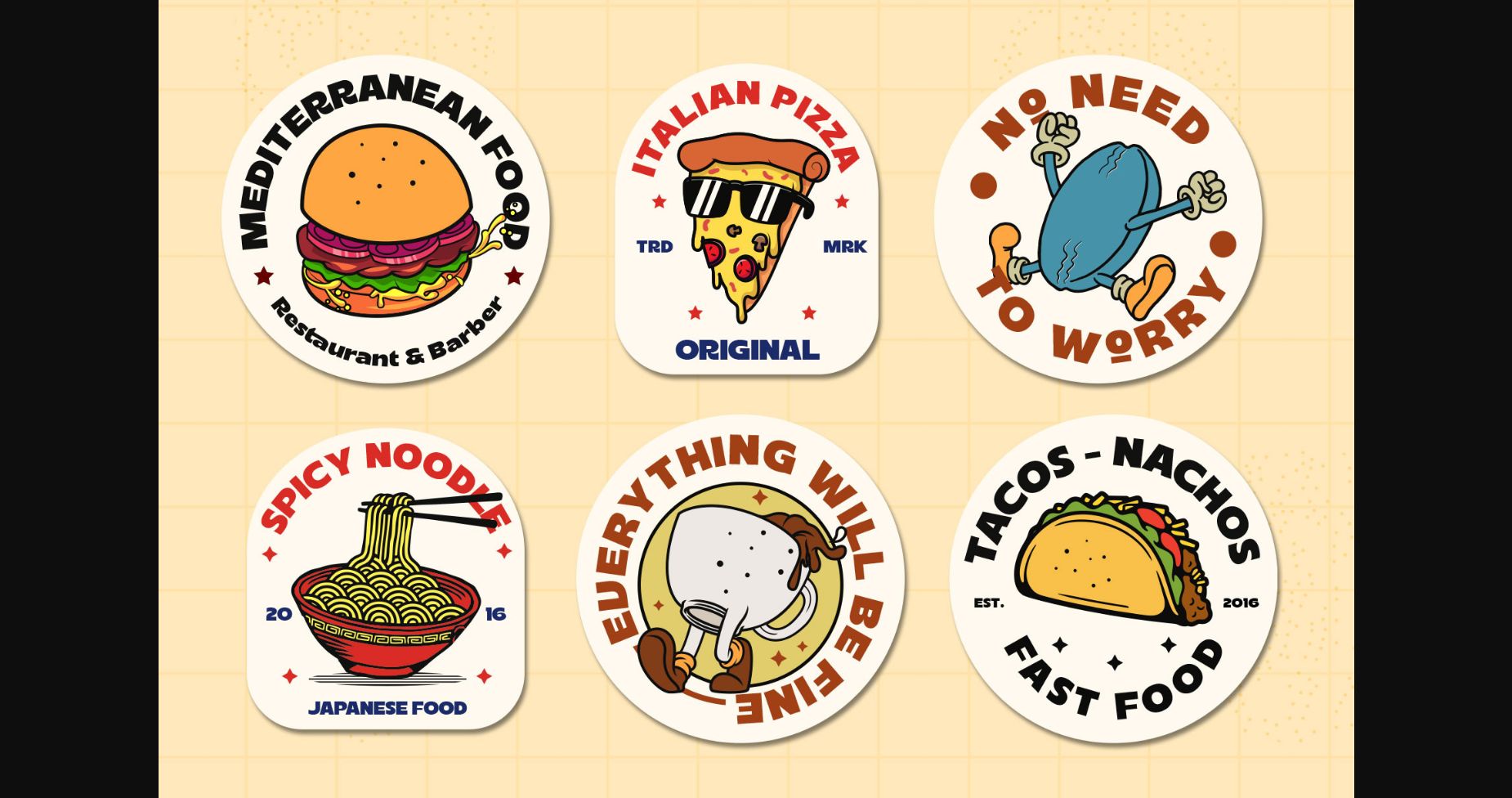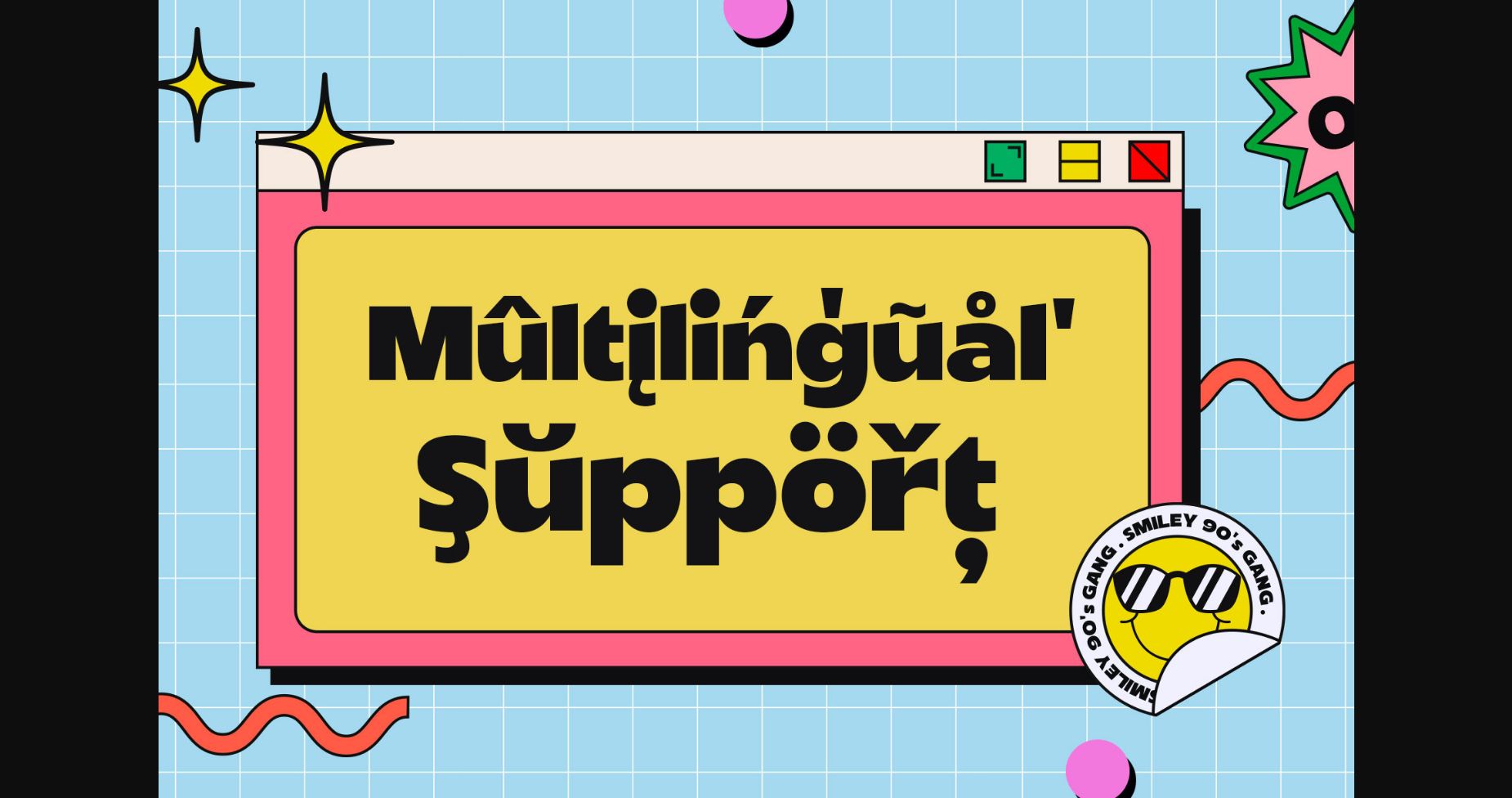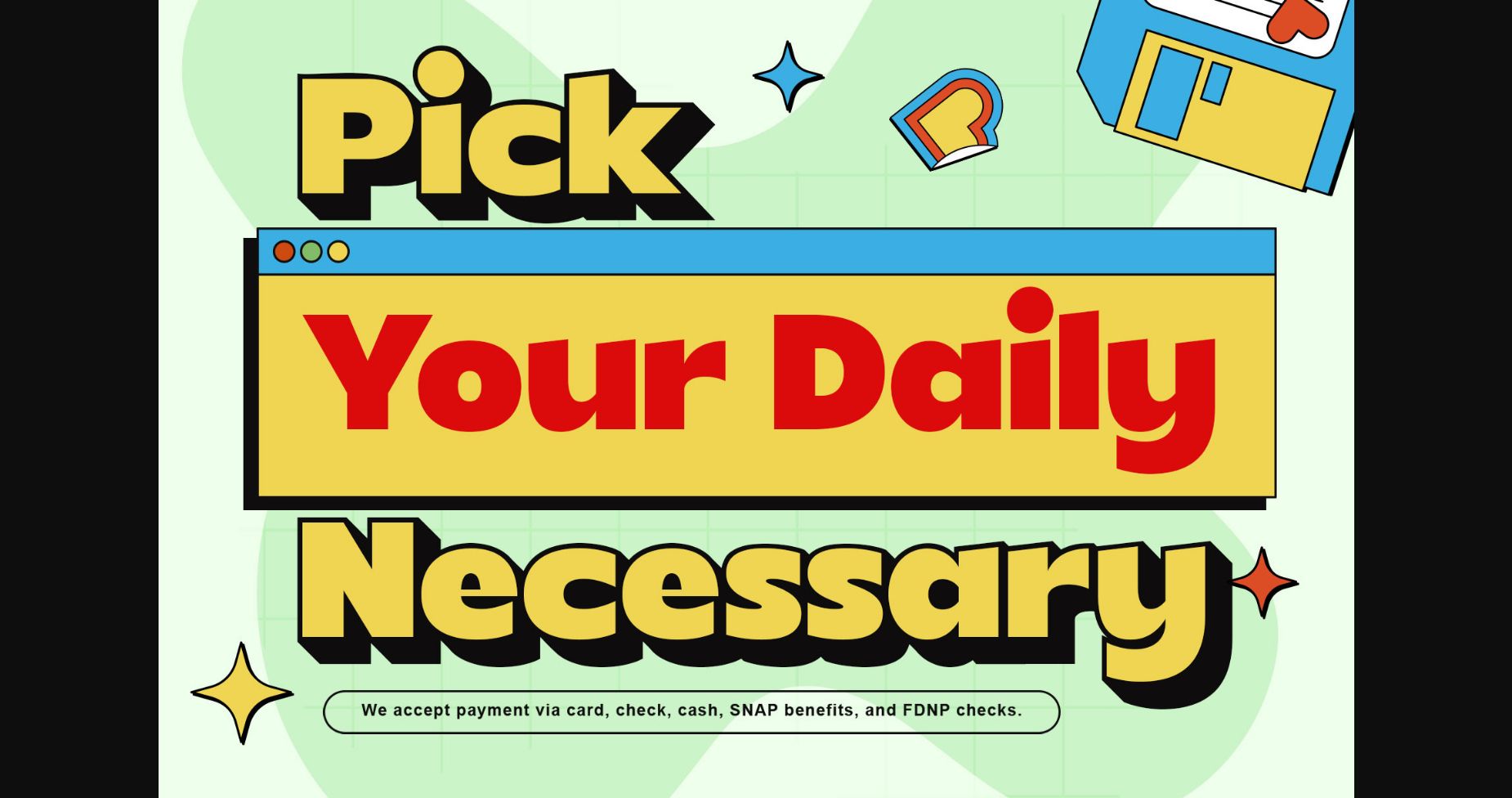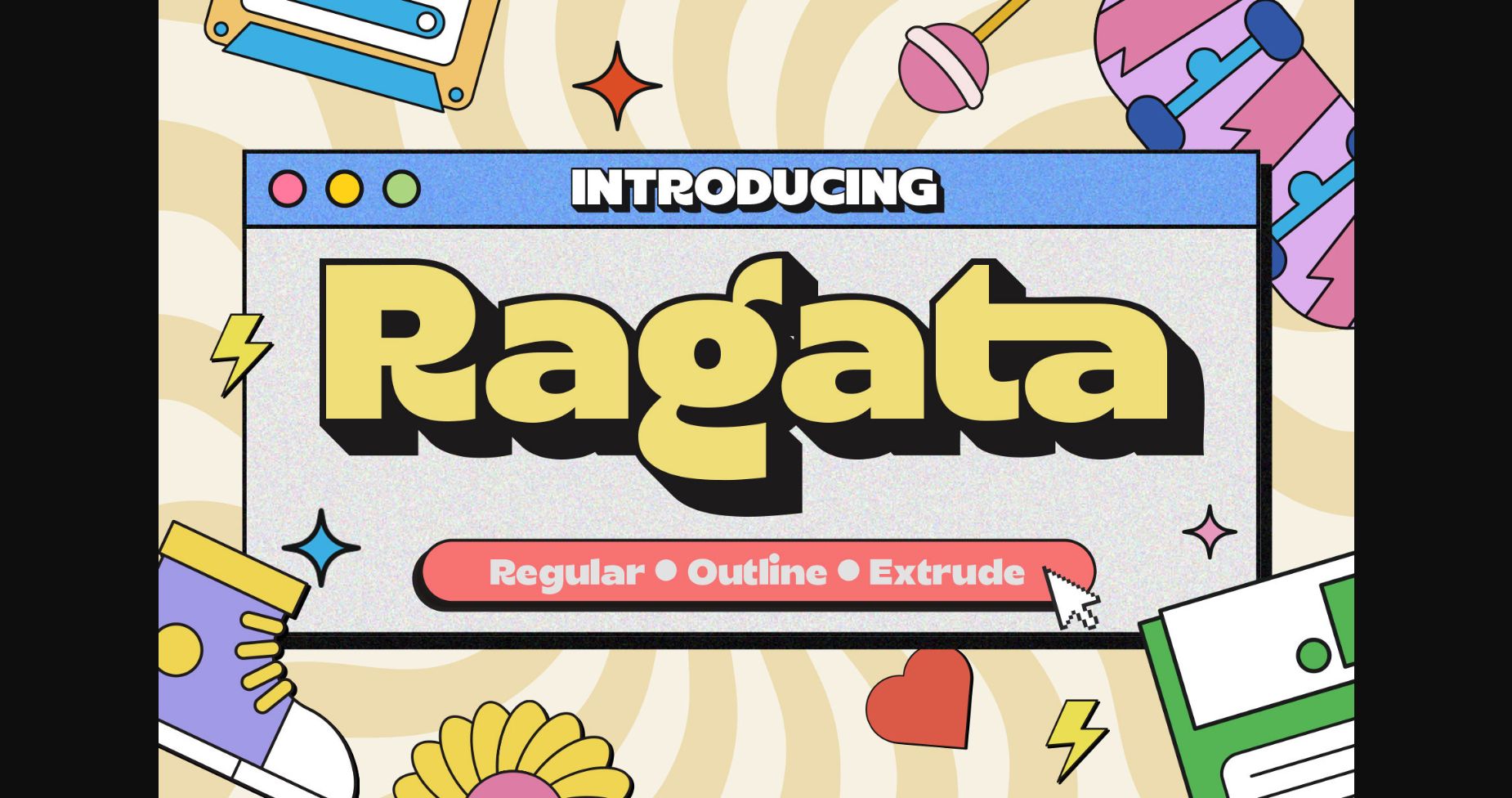
About Ragata Font
Ragata is a bold and playful display font that draws inspiration from retro sans serif and vintage logo design. With its elegant yet lively character, Ragata is perfect for creating eye-catching headlines, labels, badges, logos, stickers, motion graphics, posters, and more. It is also PUA encoded which means you can access all of the glyphs and swashes with ease!